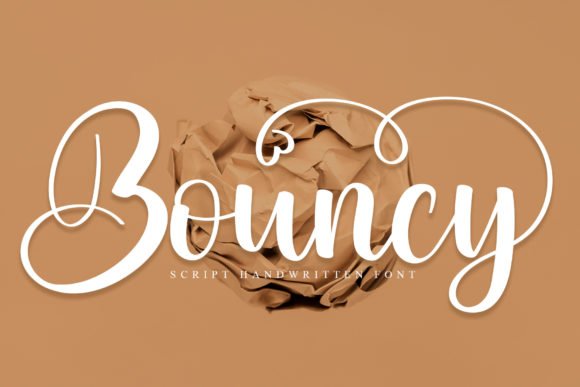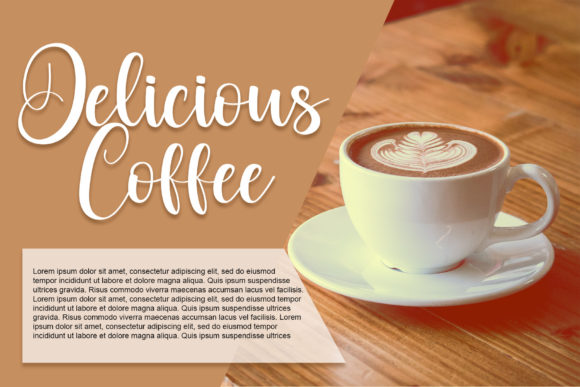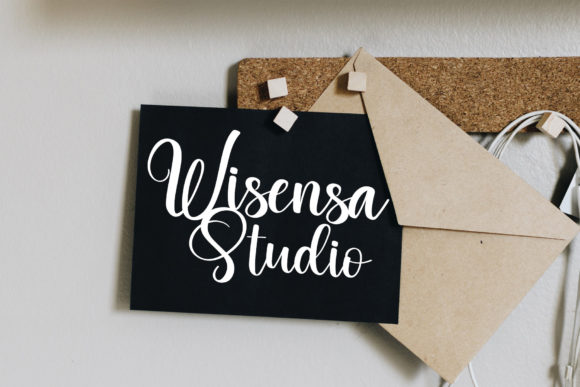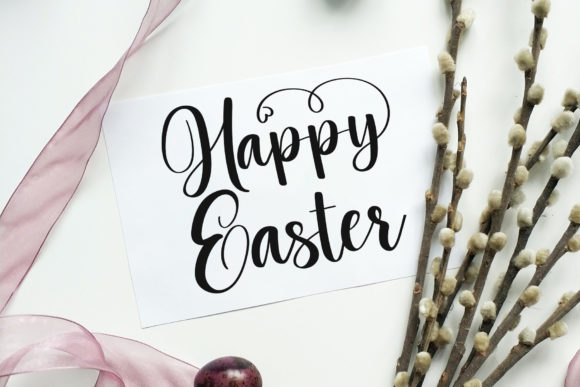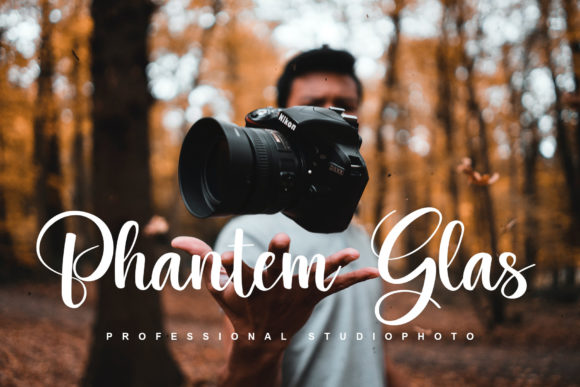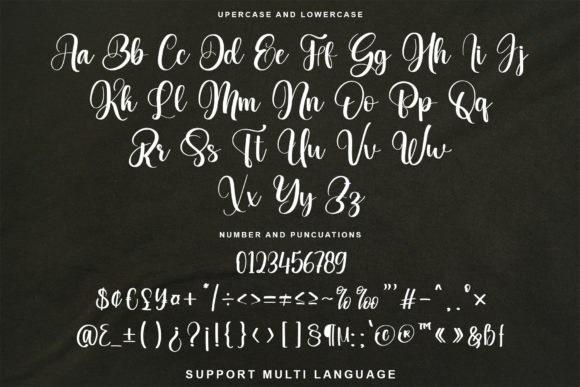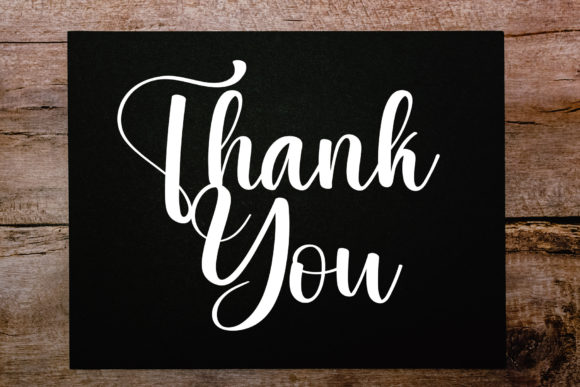
The Perfect Font to Bring Your Designs to Life
Remember that moment when you’re working on a project and you just can’t find the right font to match your vision? You scroll through endless options, but nothing seems quite right. That’s when you stumble upon it – the perfect font that elevates your design and makes it truly special.
Meet the Bouncy Font, a modern handwritten font that’s inspired by classic calligraphy. With its balanced and varied style, this font is designed to add a touch of elegance to any project. Whether you’re a seasoned designer or just starting out, the Bouncy Font is a valuable addition to your toolkit.
What sets the Bouncy Font apart is its versatility – it’s not too thin, not too thick, and always looks spotless. This makes it the perfect choice for designers who want to create beautiful and professional-looking projects that stand out from the crowd.
Bouncy Font Key Features
- Unique Characteristics: The Bouncy Font is known for its playful, bouncy feel, which is achieved through the use of custom-designed letterforms and ligatures.
Bouncy Font Review
I recently had the chance to work with the Bouncy Font, and I must say, it’s a fun and quirky addition to any design project. ✨ The font’s bouncy feel and playful vibe are sure to grab the user’s attention and add a touch of whimsy to any text.
Here are some of the things that I think work well with the Bouncy Font:
- ✨ Unique style: The font’s bouncy feel is unlike any other font out there, making it a great choice for designers looking to add some personality to their work.
- ✨ Versatile: Despite its playful vibe, the font is surprisingly versatile and can be used in a variety of contexts, from children’s books to advertising campaigns.
- ✨ Easy to read: Despite its bouncy feel, the font is surprisingly easy to read, even at small font sizes.
- ⚠️ Limited legibility at very small sizes: While the font is easy to read at most sizes, it can become somewhat illegible at very small sizes, making it less suitable for very fine text.
- ⚠️ May not be suitable for formal contexts: The font’s playful vibe may not be suitable for more formal contexts, such as business reports or academic papers.
Overall, I think the Bouncy Font is a great choice for designers looking to add some personality to their work. While it may have some limitations, its unique style and versatility make it a great addition to any design project.
Bouncy Font is commonly used in:
- Children’s educational materials
- Party invitations and decorations Alternatives to “Bouncy Font” for Designers